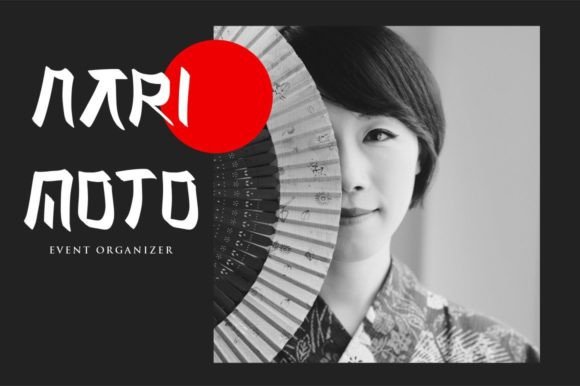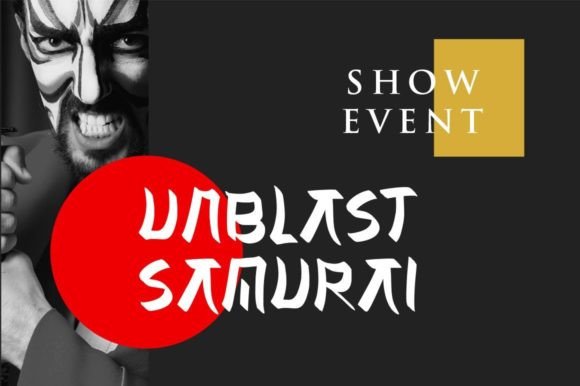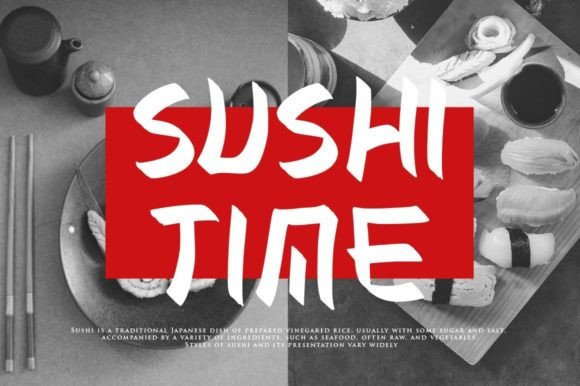
Introduction to Misaki Font
You know that moment when you’re brainstorming a new design project and everything just comes together? The colors, the typography, the overall vibe… it’s like magic. But what if you’re missing that one special element that takes your creative project to the next level? That’s where the Misaki Font comes in – a simple yet striking Japanese-inspired display font that adds a touch of elegance to any design.
With its great readability and versatility, the Misaki Font is an invaluable design resource that’s perfect for any project, from print to restaurant branding. Whether you’re working on a high-quality logo, menu, or advertisement, this font will elevate your design and make it stand out. And the best part? It’s available for free download, making it a must-have for designers looking to add a professional touch to their work.
One of the standout features of the Misaki Font is its transparent background, allowing you to easily place it over any image or background. This flexibility makes it an ideal choice for designers working on creative projects that require a high level of customization. So why settle for a bland font when you can add a touch of sophistication with the Misaki Font?
Misaki Font
- High-quality design resource ideal for creative projects, offering a unique and stylish aesthetic.
- Features a clean and modern design, making it perfect for use in logos, branding materials, and other visual identity projects.
Honest Review: Misaki Font
I recently had the chance to work with the Misaki Font for a creative project, and I must say it’s been a great experience. This design resource is perfect for those looking for a high-quality font that can elevate their work.
- ✨ The Misaki Font is incredibly versatile and can be used for a wide range of creative projects.
One of the things I like most about the Misaki Font is its unique and elegant design. It’s perfect for creating a sophisticated and professional look in any design project.
⚠️ However, I did find that the font can be a bit tricky to work with at times, especially when it comes to larger text sizes. But overall, this is a minor limitation that can be easily overcome with a bit of experimentation.
Overall, I’m really impressed with the Misaki Font and would highly recommend it to any designer looking for a high-quality font for their next project.
Tips for Getting the Most Out of Misaki Font
Use Misaki Font with a transparent background to create a clean and minimalist design. Experiment with different font sizes and styles to add visual interest to your designs. You can also use Misaki Font in combination with other design elements, such as images and graphics, to create a unique and eye-catching design.
Misaki Font is commonly used in creative projects, such as logos, brochures, business cards, and presentations. It’s also a popular choice for design resources, such as font packs and design bundles. With its high-quality design and transparent background, Misaki Font is a versatile and useful design resource for any creative project.